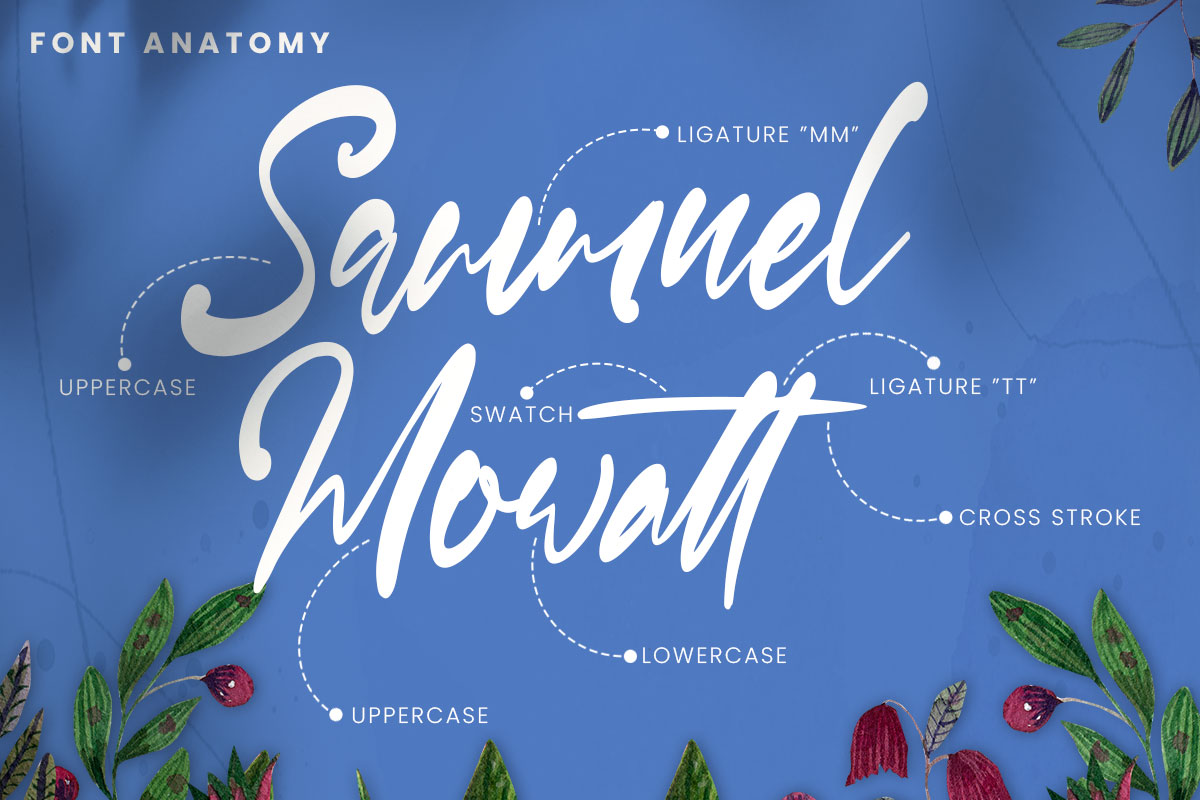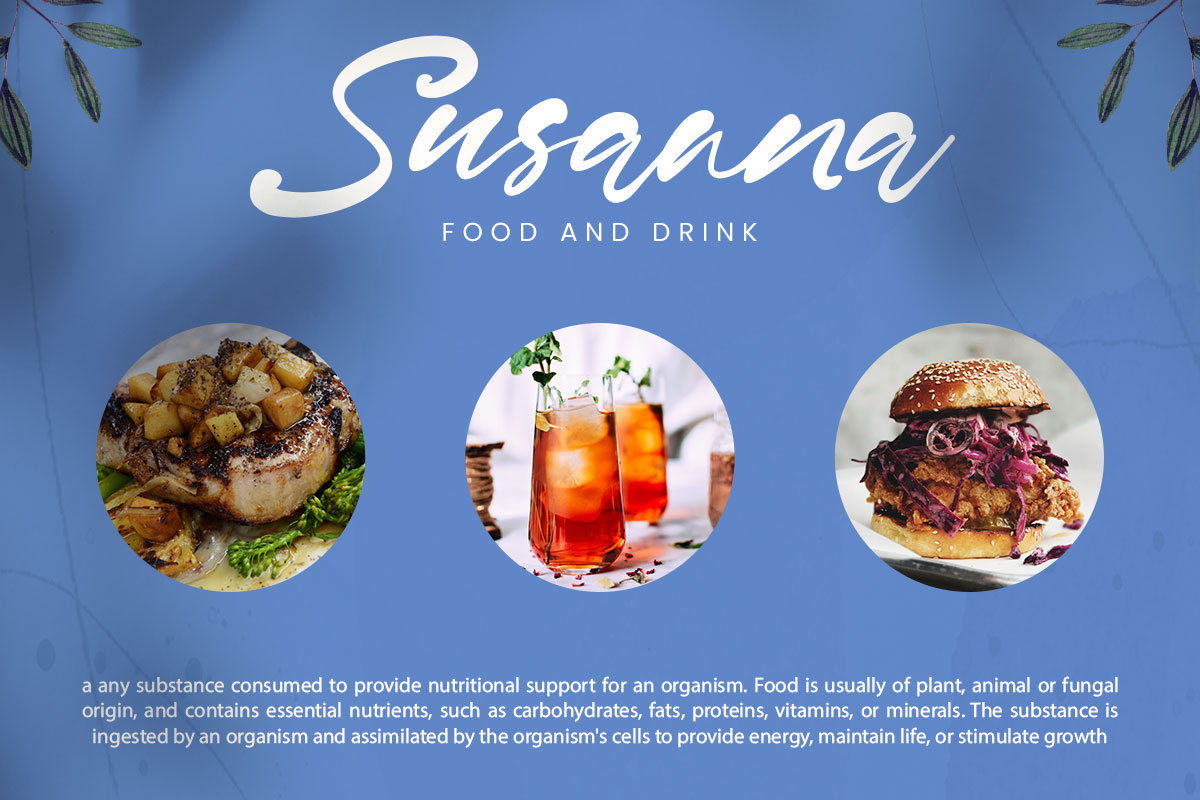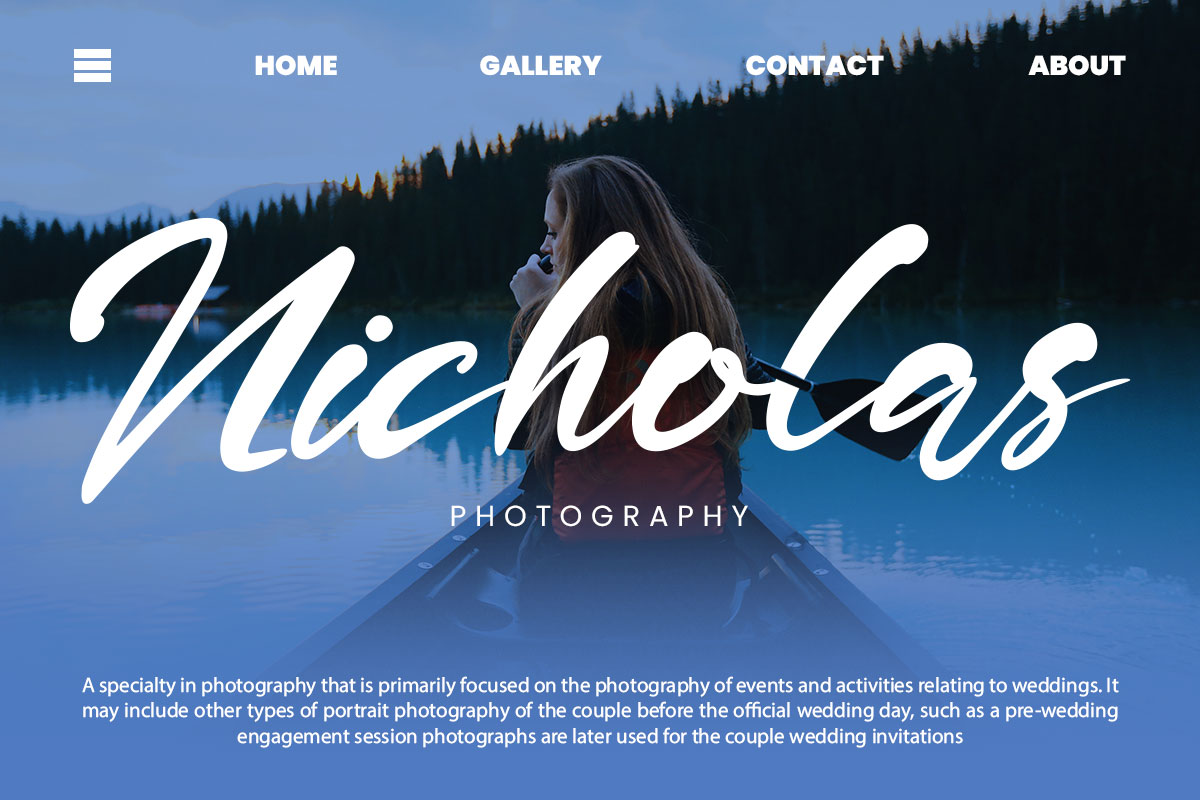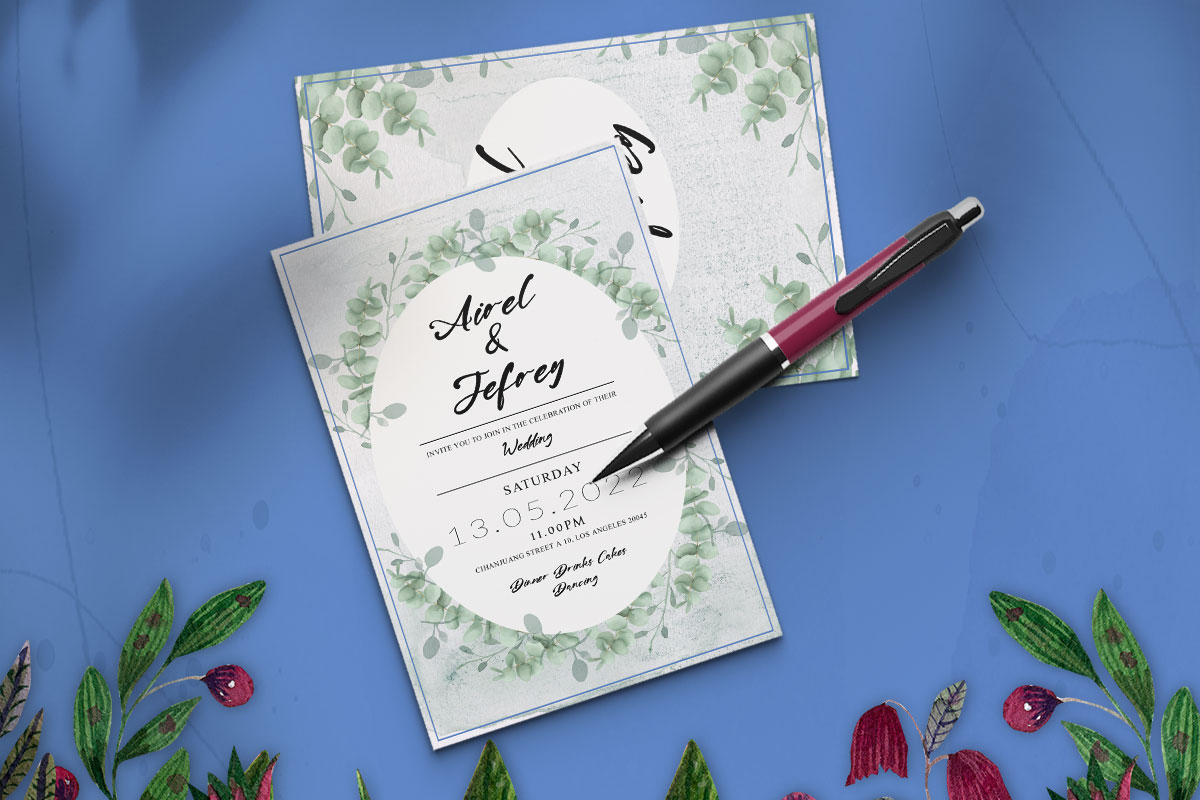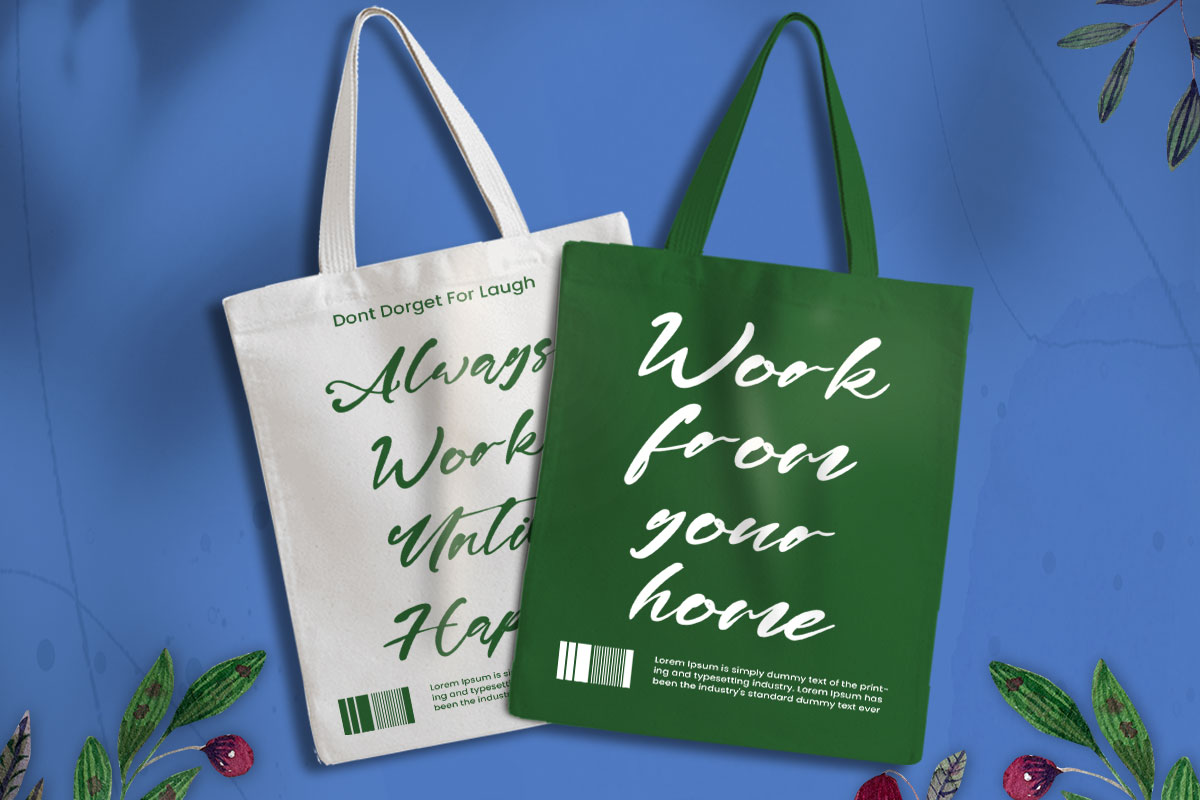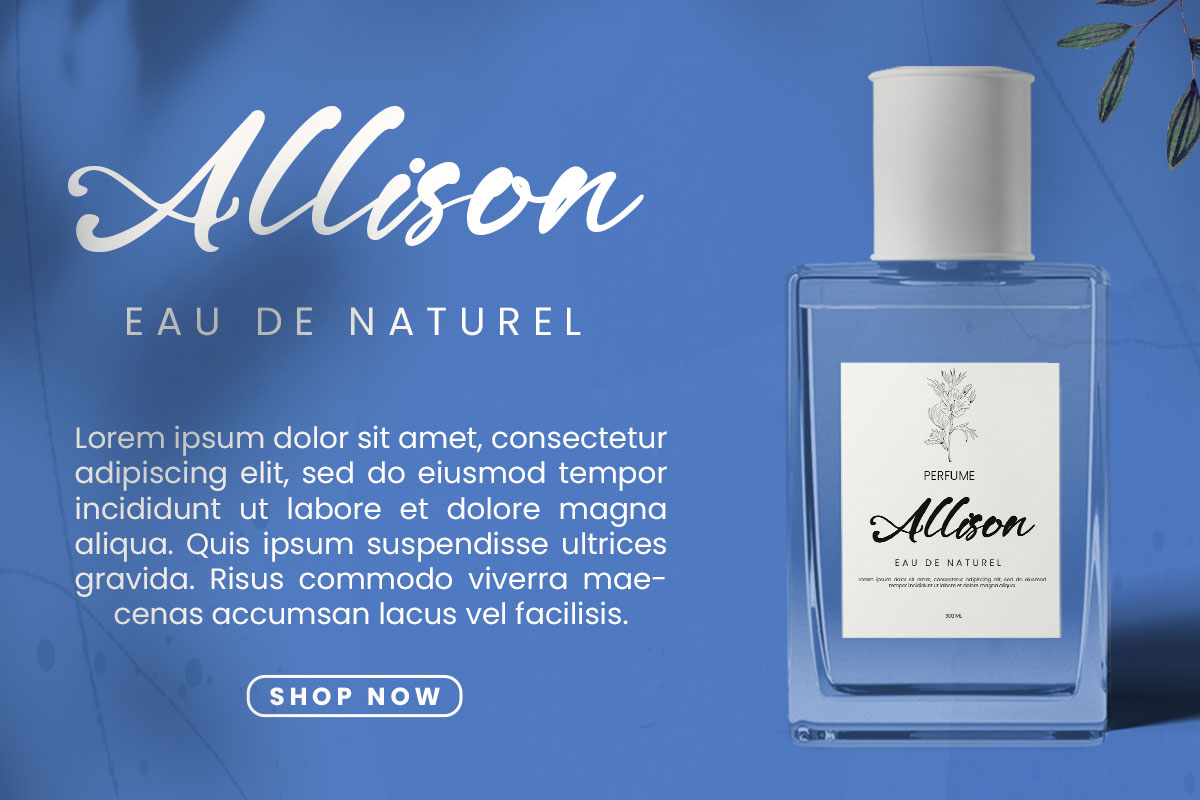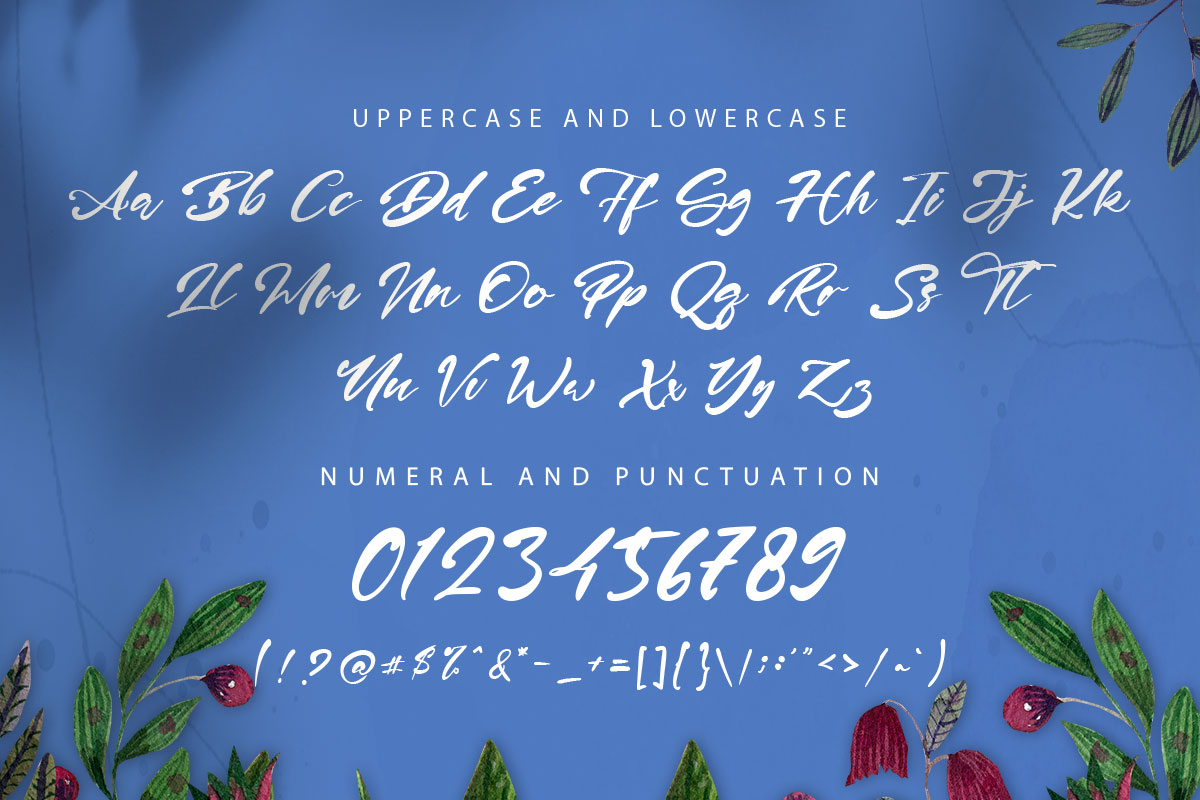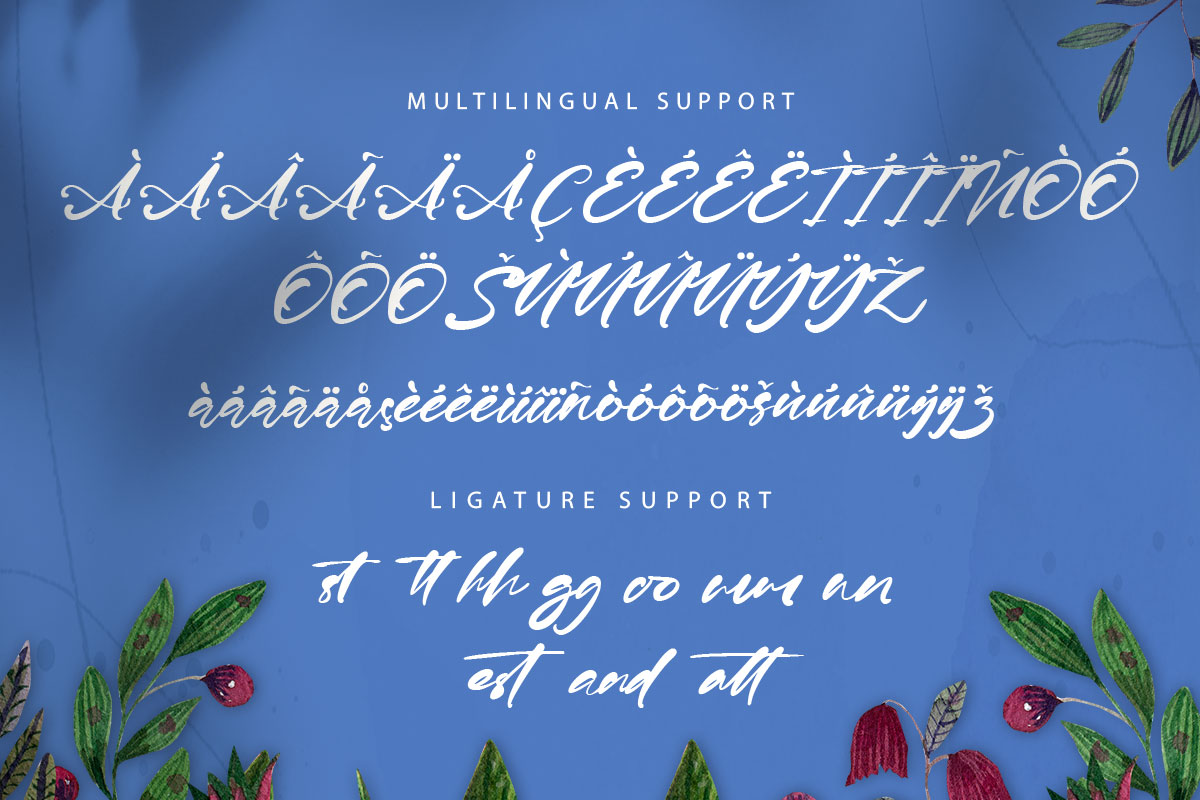
Mario Emma Font Mario Emma Modern Script Font is part of the Script & Signature font family. This font is a modern typeface and exudes a simple, impressive, and unique impression. This font looks like handwriting made using a brush with a continuous writing technique so that the letters connect beautifully. However, compared to other typefaces, Mario Emma Modern Script Font has more limited uses. This typeface is suitable for casual events such as stand-up comedy, music concerts, sports, etc. Mario Emma Modern Script Font can use for posters and banners. A script typeface such as the Mario Emma Modern Script Font is one of the eligible fonts to use for jackets, t-shirts, and hoodies. This font can use for branding a product, such as in advertisements, brand tags, and store sales. Our Mario Emma Modern Script Font doesn't need many embellishments or extra work to look great in both print and digital fonts. All you need is the skill to understand what combinations of good fonts and different typefaces work together. You can bring out the best Mario Emma Modern Script Font with the right colors and themes. Mario Emma Modern Script Font is inappropriate when used in a long body of text with much dense information for the reader because the shape is difficult to distinguish between letters and connect. Therefore, Mario Emma Modern Script Font is one of those eligible. Our collection of script & signature fonts is compatible with Figma fonts, Canva fonts, Freepik Fonts, and Adobe Fonts. They also work as Windows Fonts and Apple Fonts. For your social media needs, you can use and install fonts in our Script & Signature font collection to use as Instagram Fonts, Facebook Fonts, and Twitter Fonts.